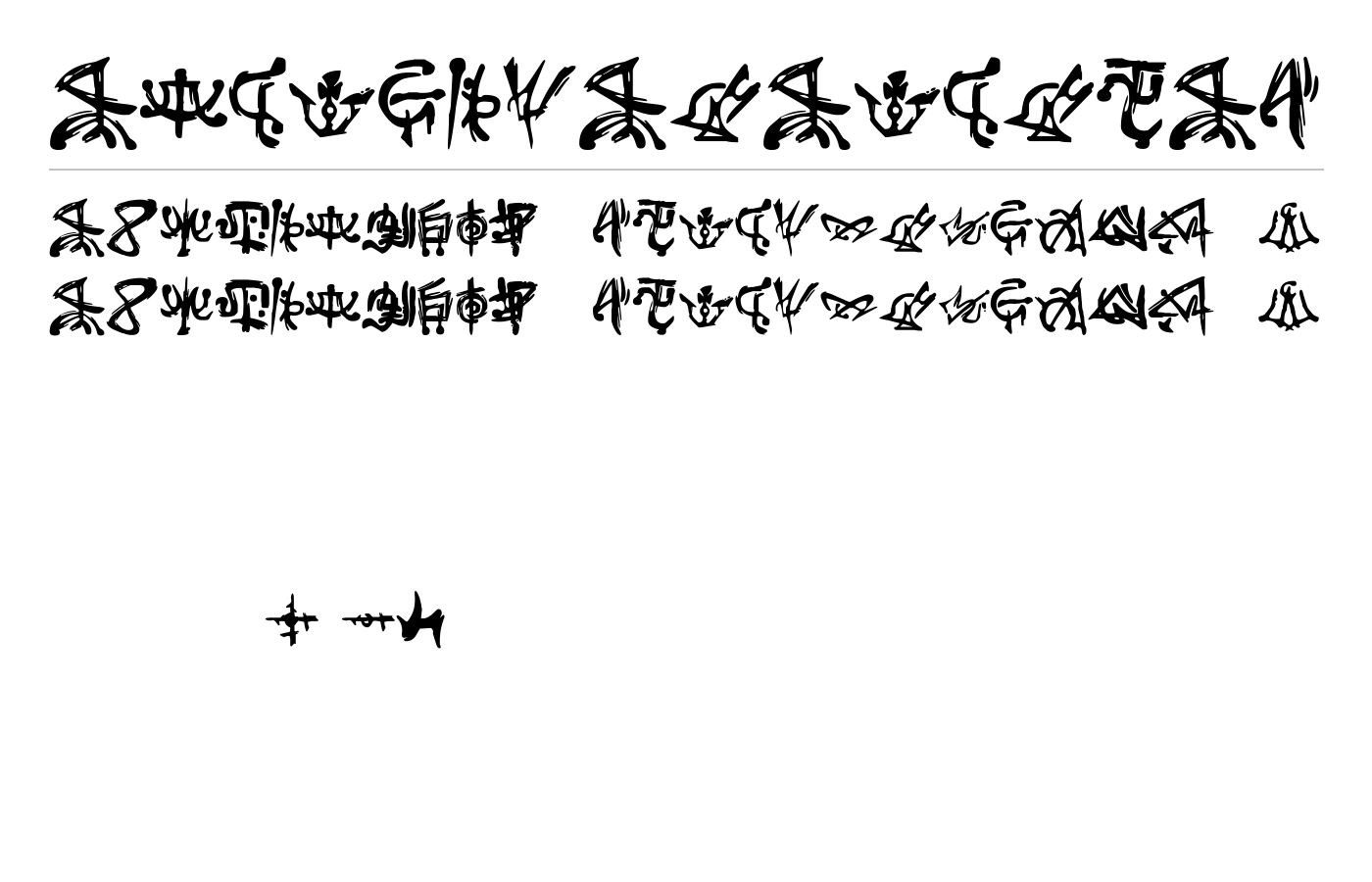
AFonteParanormal is a highly stylized display font with an abstract, almost glyph-like design that evokes a mysterious and otherworldly vibe. Its intricate, bold strokes and irregular shapes make it perfect for creative projects that seek to stand out with a unique, enigmatic aesthetic. This font works best in headlines, logos, or artistic branding where an unconventional, spooky atmosphere is desired.
AFonteParanormal Font
About AFonteParanormal Font